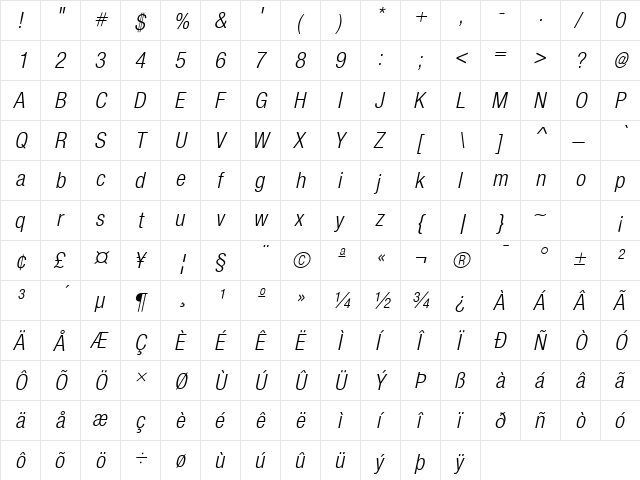
Sans Light Cond. ITALIC Font Preview
Design Context for Sans Light Cond. Typeface
Sans Light Cond. offers clean, dependable letterforms without strong stylistic allegiance, making it a practical choice for designers who need flexibility. The slanted form adds forward momentum and visual energy. Its slender proportions lend an understated elegance to any composition. Its narrow stance lets it pack a punch even in space-constrained designs.
Pro Tip: Try Sans Light Cond. for annotation and caption copy alongside an upright companion — the contrast in angle creates a dynamic but ordered typographic system.